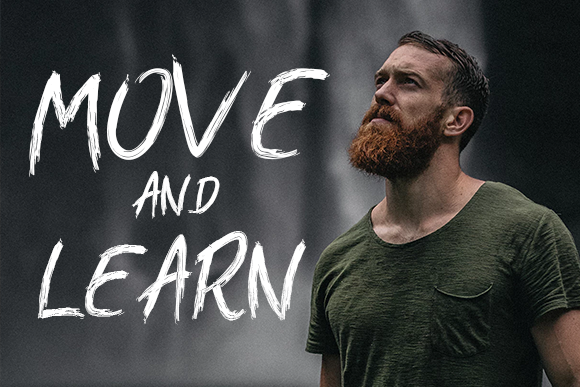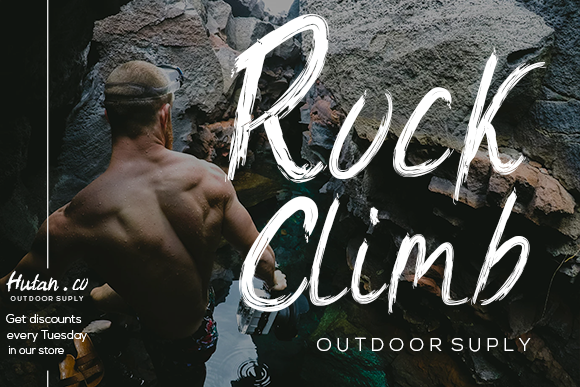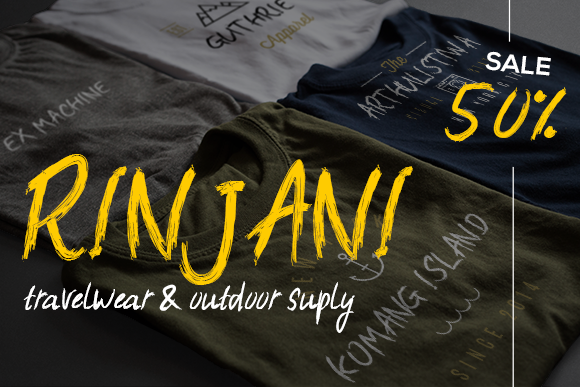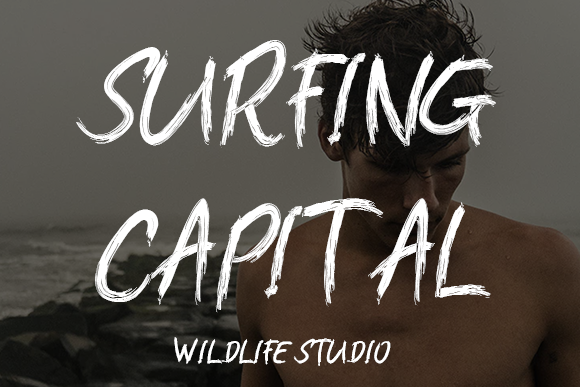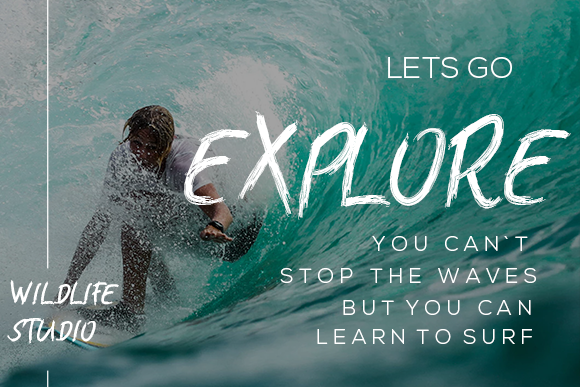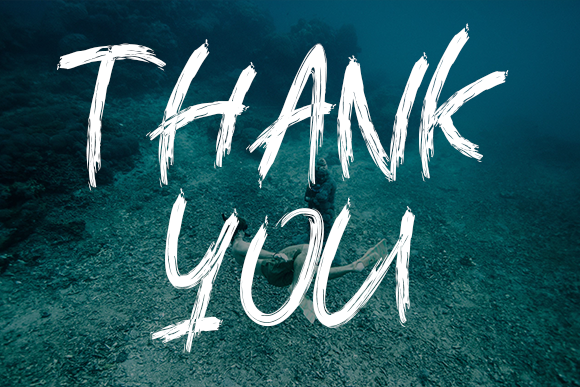
Introduction to Pantara Font
The Pantara is a dry brush script which was made from natural flow scratches with a signature style.
It has a bold, sophisticated and modern style which can be used for logos & branding, invitations, stationery, wedding designs, social media posts, advertisements, product packaging, product designs, labels, photography, watermarks, special events or anything that needs a handwritten touch .